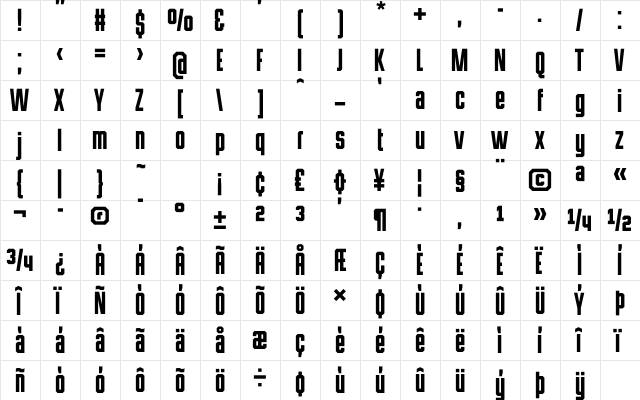
HermanoAlto Chisel Regular
| Foundry | Levi Szekeres |
| Designer | Levi Szekeres |
Design Context for HermanoAlto Chisel Typeface
HermanoAlto Chisel takes a measured approach to typography — its balanced proportions and neutral character make it a reliable workhorse for both digital and print work.
Pro Tip: Use HermanoAlto Chisel in both headline and body roles to test its range before committing to a single application.